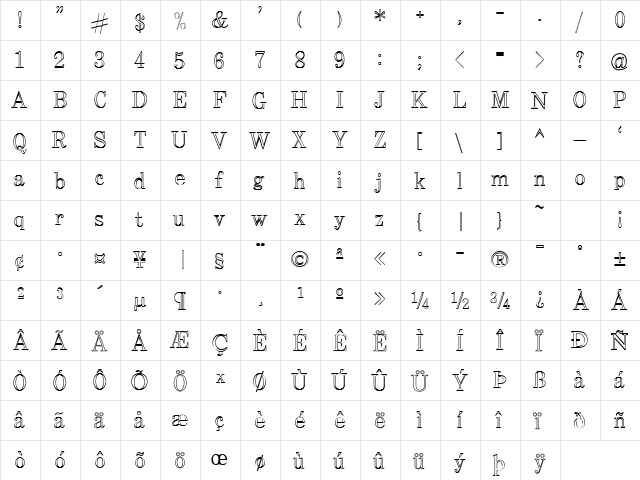
QTCraigetypeOutline Regular
Design Context for QTCraigetypeOutline Typeface
QTCraigetypeOutline brings ornamental detail and strong personality to headlines and identities, where visual impact matters more than quiet functionality.
Font Pairing: Pair with a clean neutral sans-serif for body copy to let QTCraigetypeOutline's character lead without overwhelming the composition.
Pro Tip: Treat QTCraigetypeOutline as the centrepiece of your typographic hierarchy. One strong heading set in a decorative face can carry an entire layout.